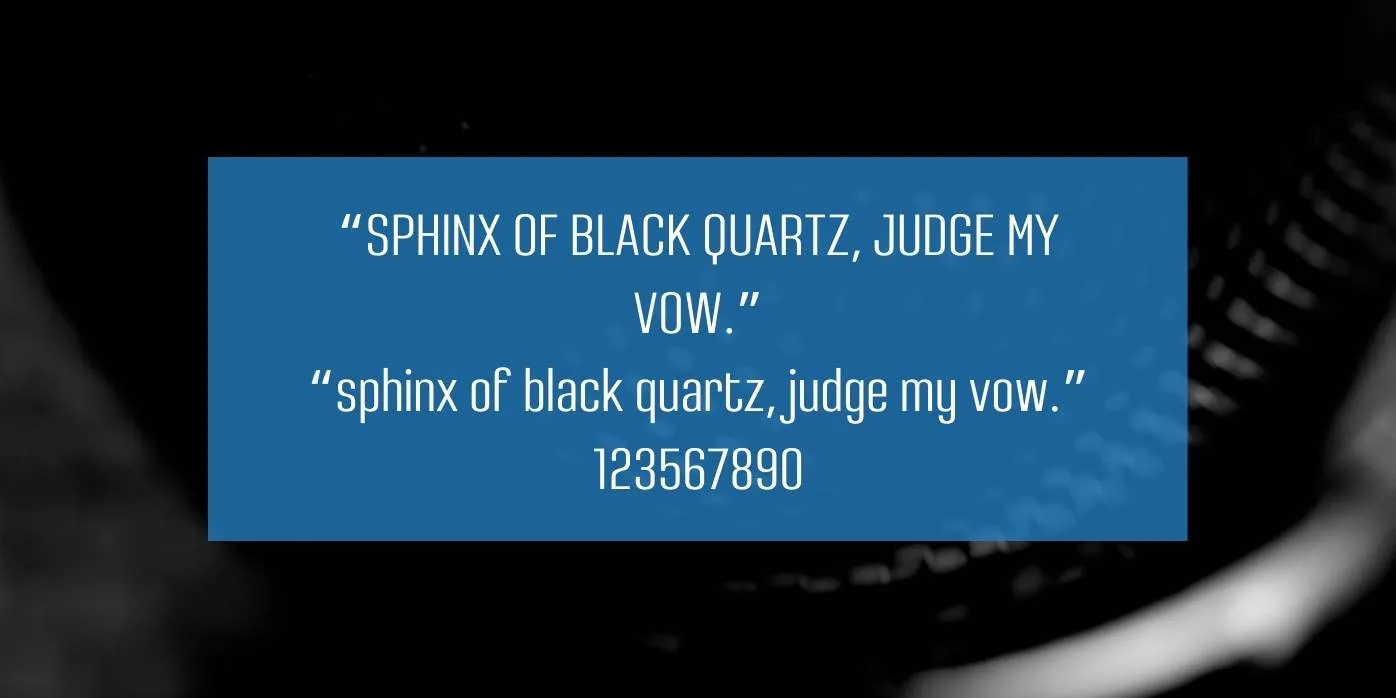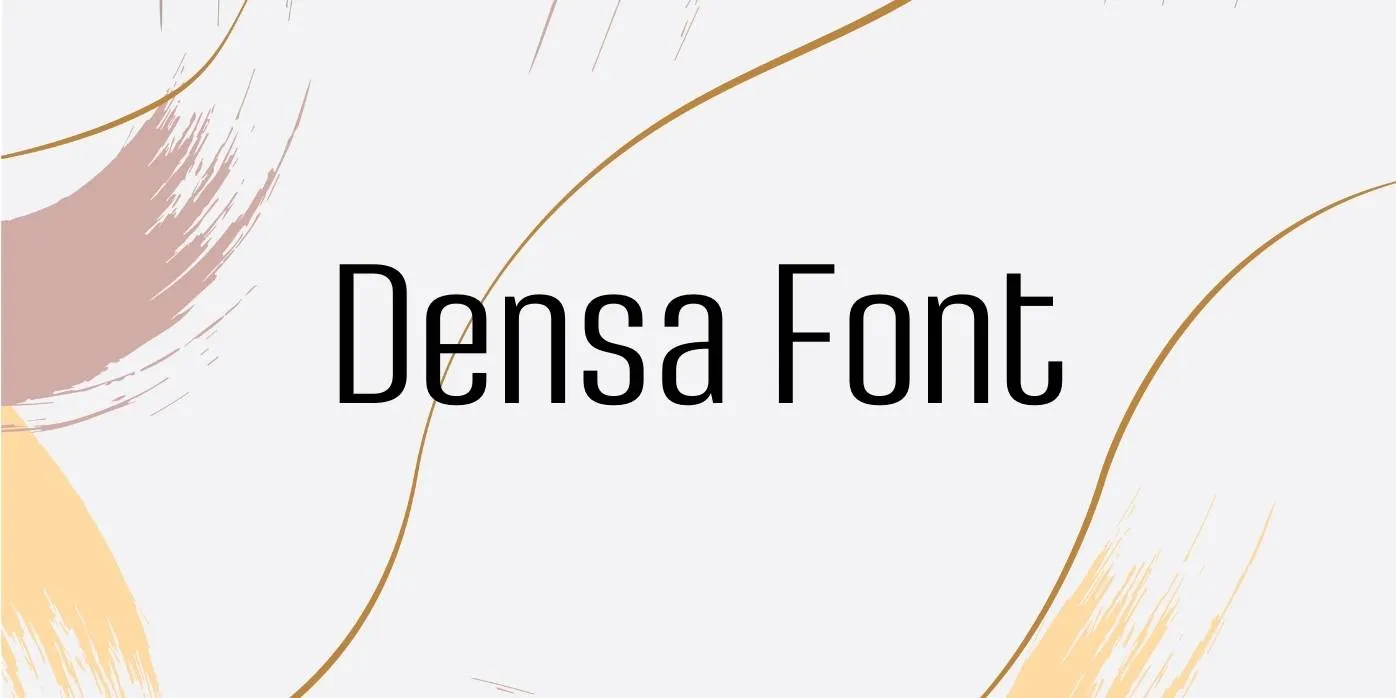
Densa Font
Densa Font is a very famous typeface that belongs to the sans serif font family. This typeface was created by Graviton Font Foundry. The company is based in Canada and this font was first released on 15th July 2021. This is one of the most popular typefaces which are widely used by graphic designers all over the world.
The Densa Font has a very unique design that makes it stand out from other sans serif fonts. It has a very thin body with tall letters. The ascenders and descenders are very long, which gives the font an elegant look. It is perfect for CSS.
You can also use Adobe and Canva. You can also use ff cocon font which is closest to this font family. The letterforms are also very round, which makes the font look friendly and approachable. This classy font is perfect for branding and identity projects, as well as for headlines and large text.
It can be used for both digital and print projects.